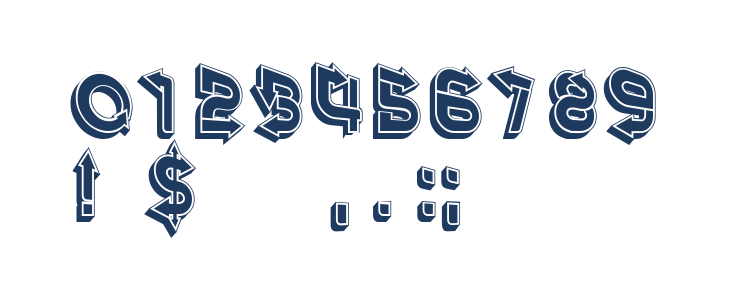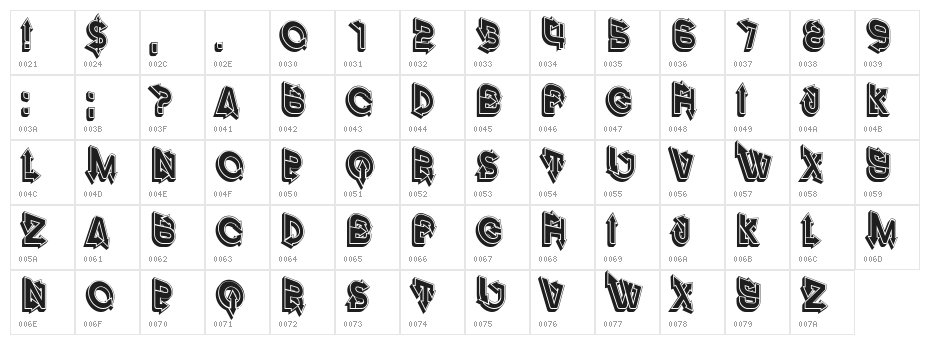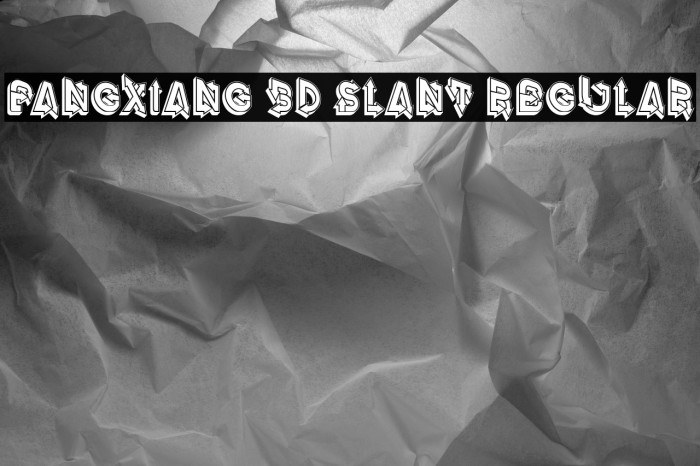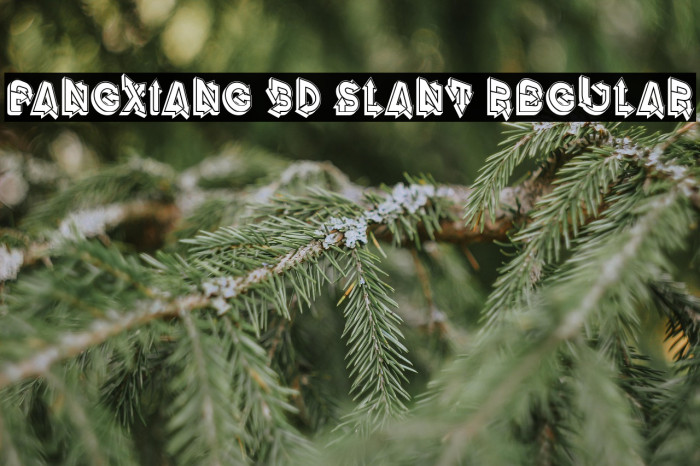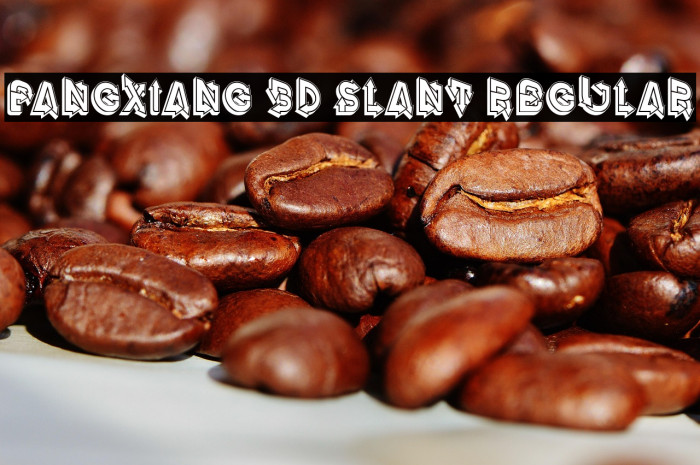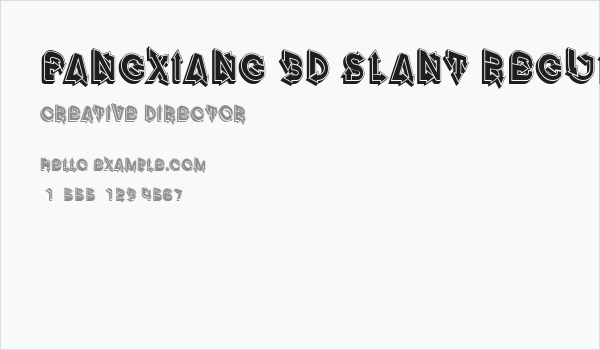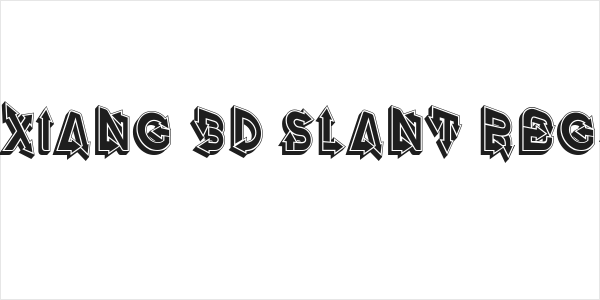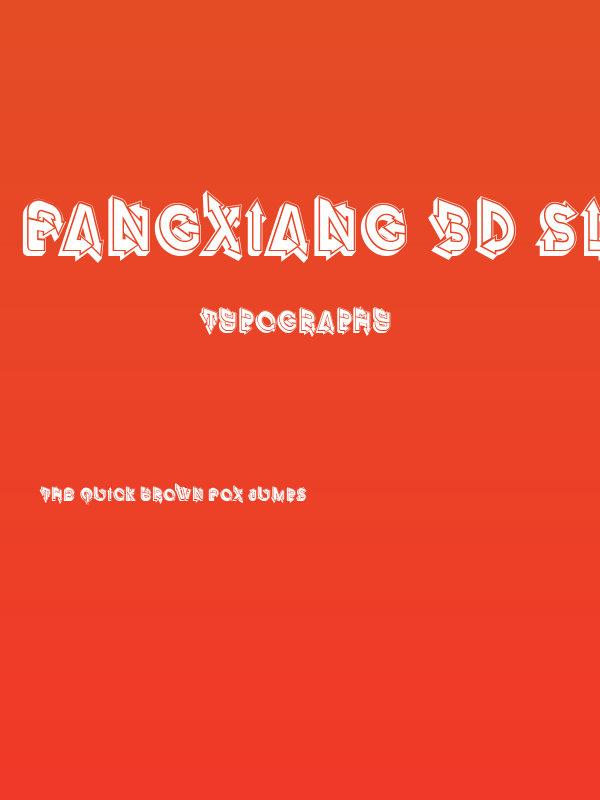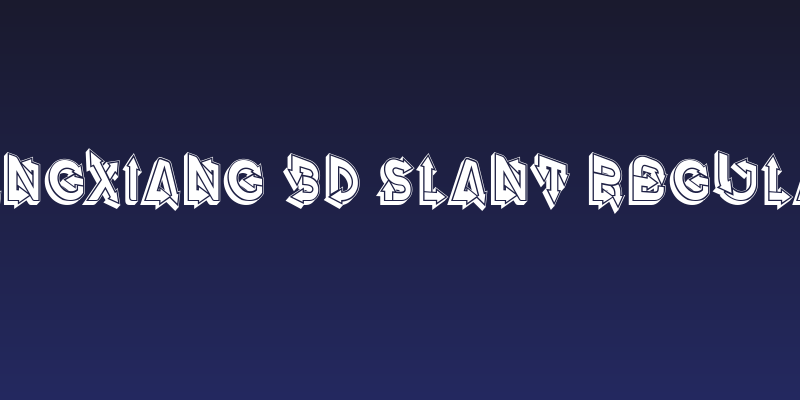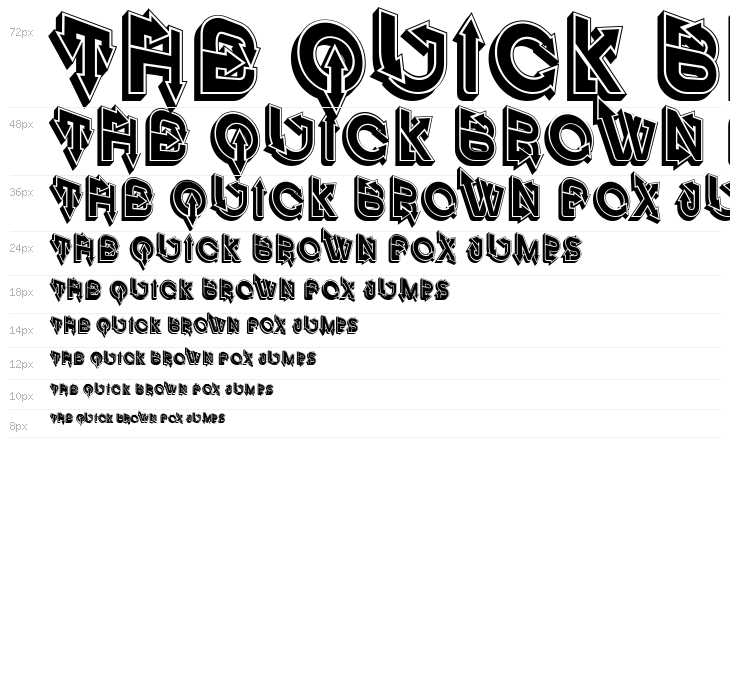
Fangxiang 3D Slant Regular Font
Fangxiang 3D Slant Regular Description
This font features a bold, three-dimensional style with a slanted orientation, giving it a dynamic and modern appearance. The characters are outlined with a thick black border, enhancing their 3D effect. Each letter and number is designed with sharp angles and geometric shapes, creating a futuristic and edgy look. The font's unique style makes it stand out, with a strong visual impact that is ideal for attention-grabbing designs. The special characters maintain the same bold and angular design, ensuring consistency across all elements.
| Proposed Projects | Ideal for video game titles, movie posters, and branding for tech companies or futuristic themes. |